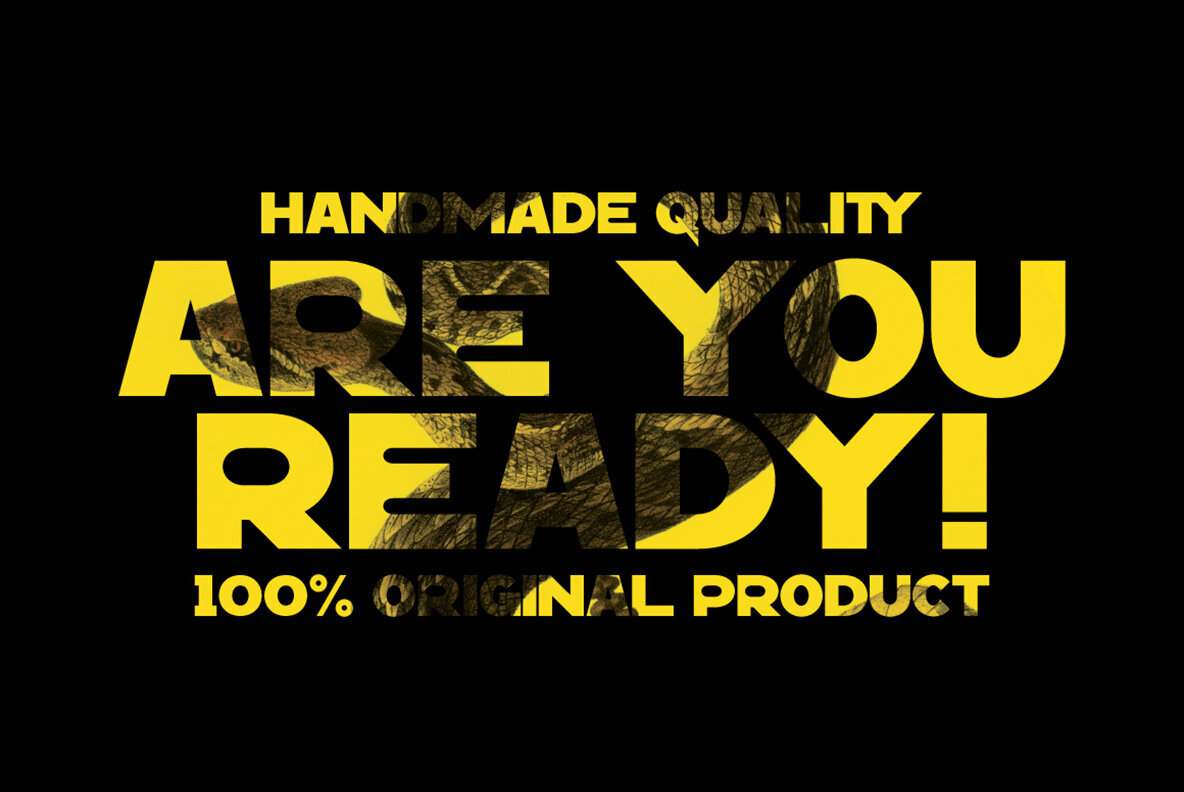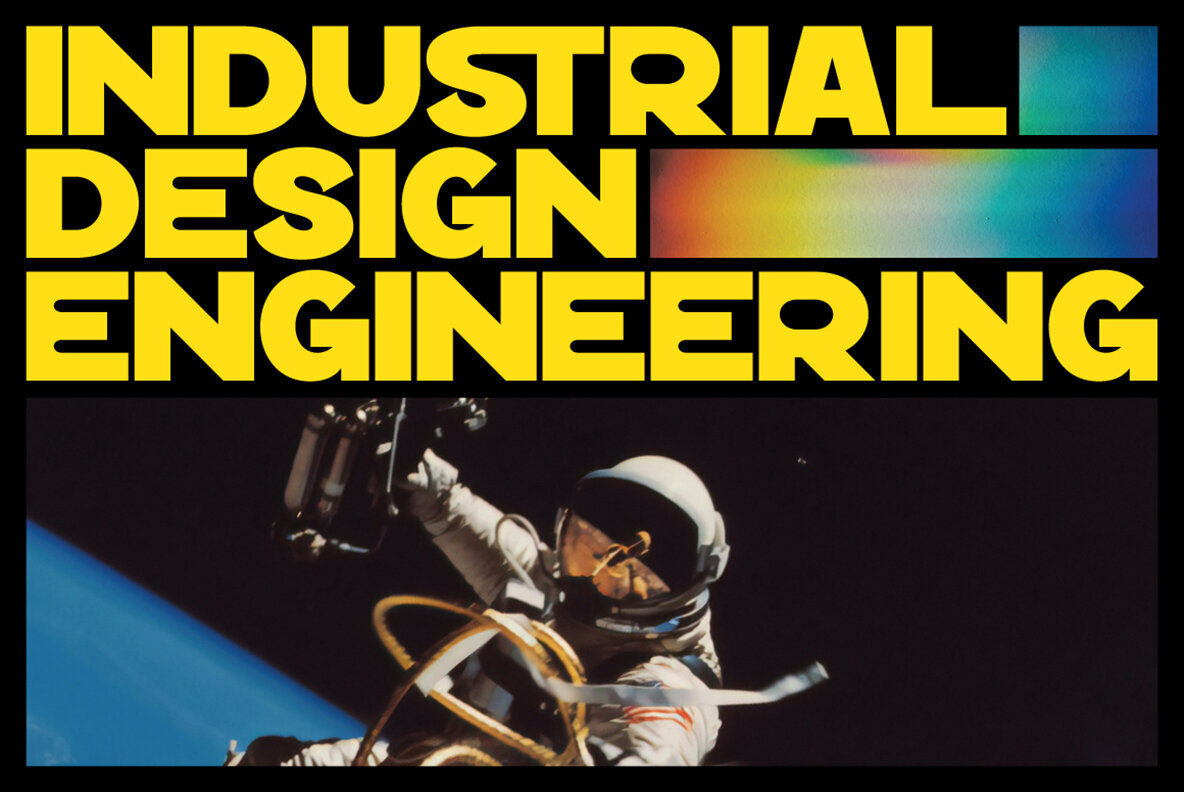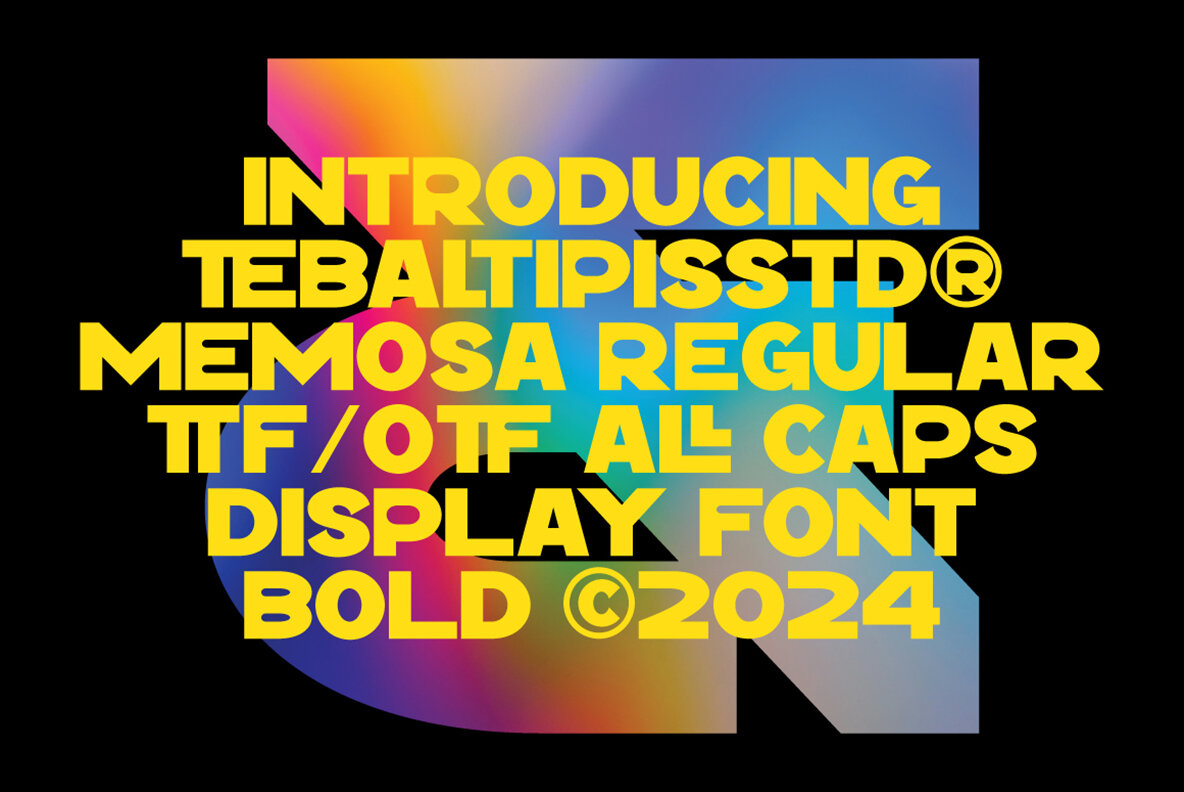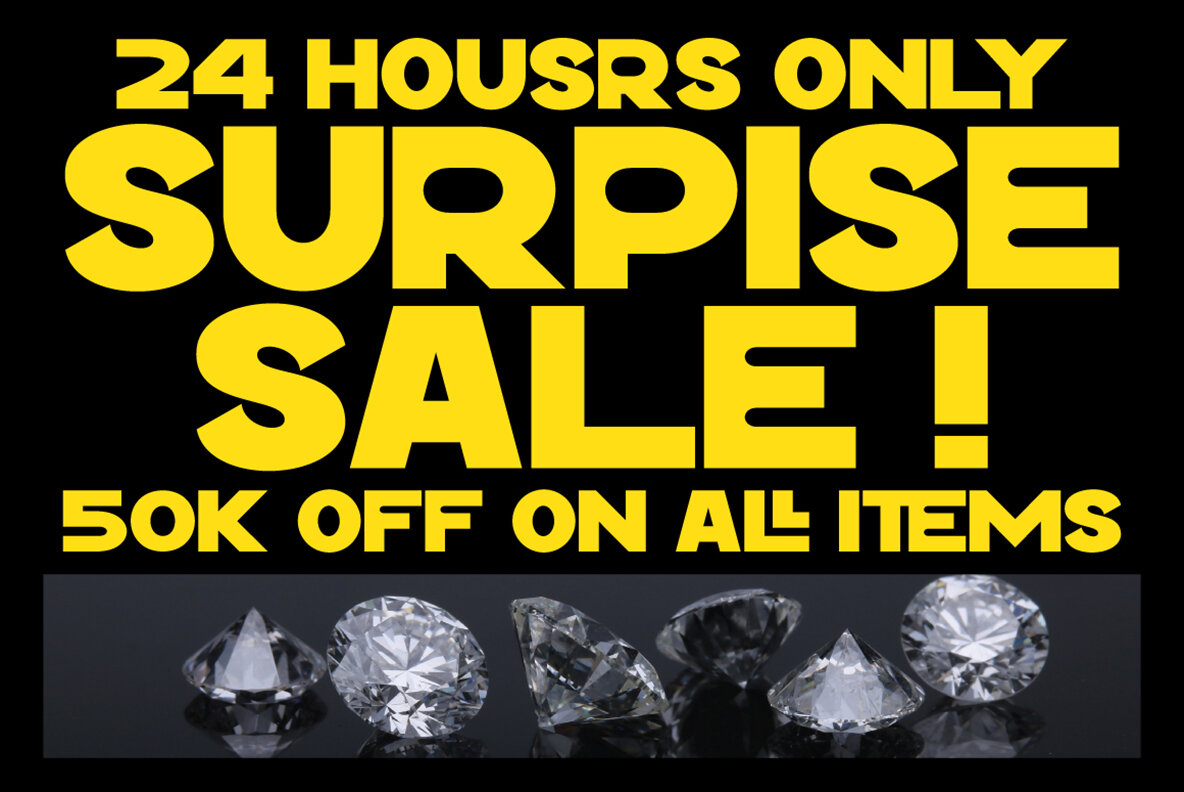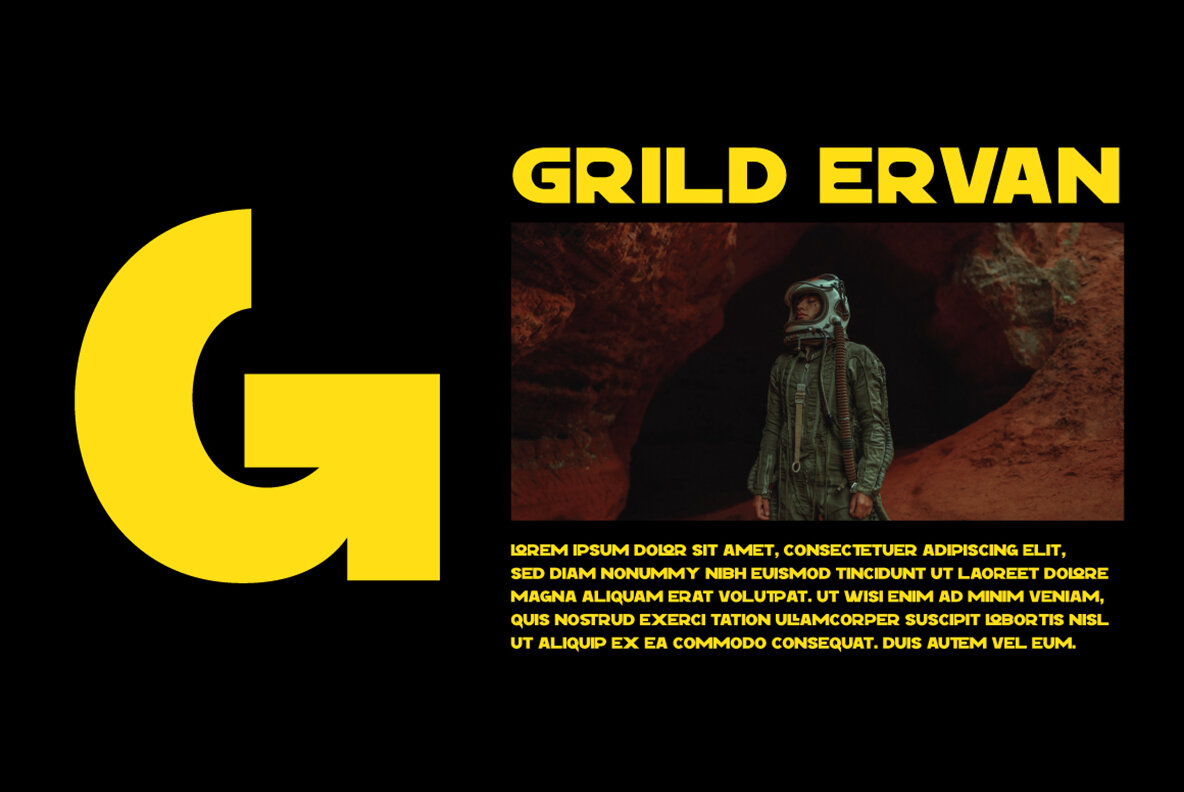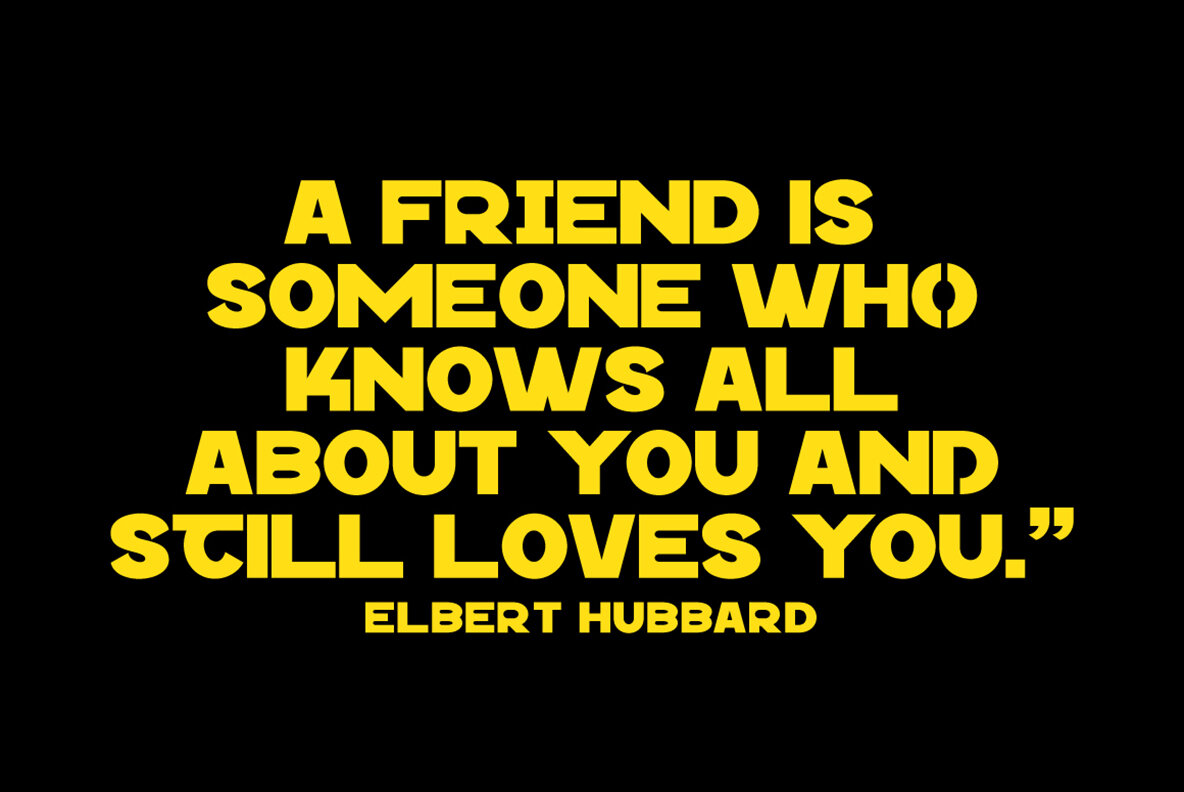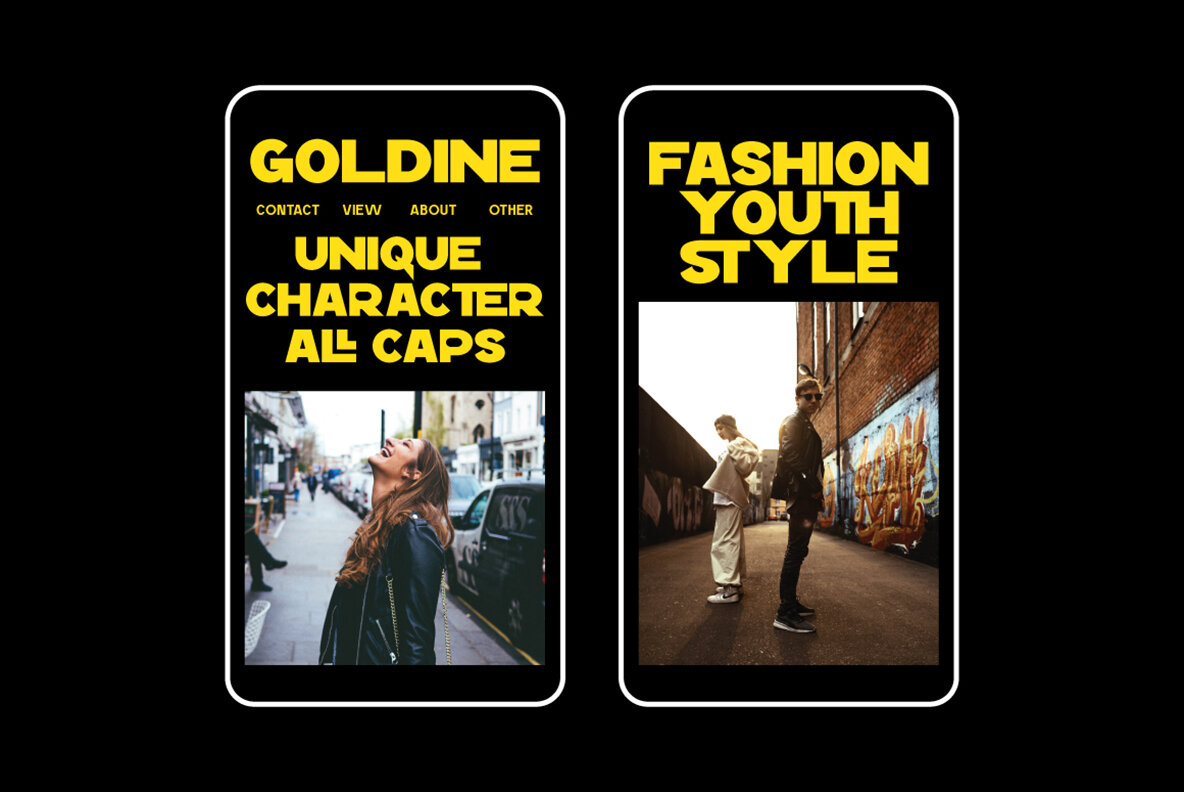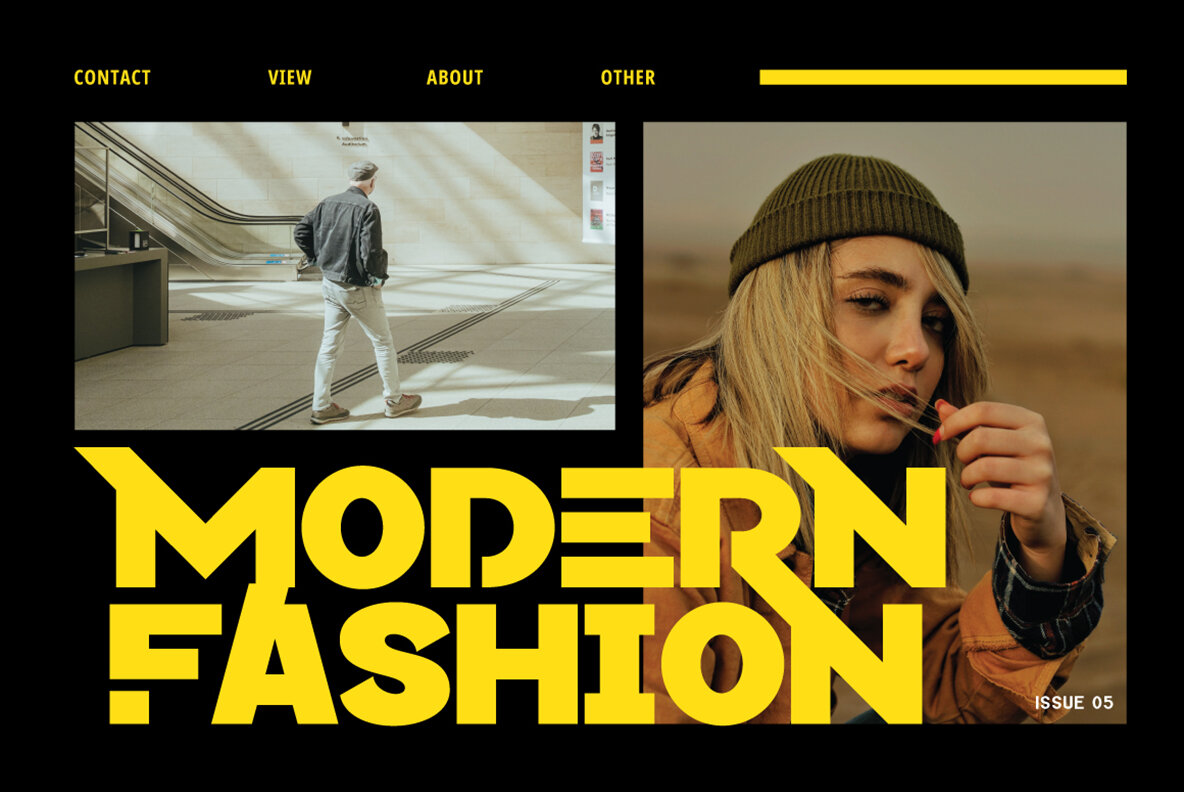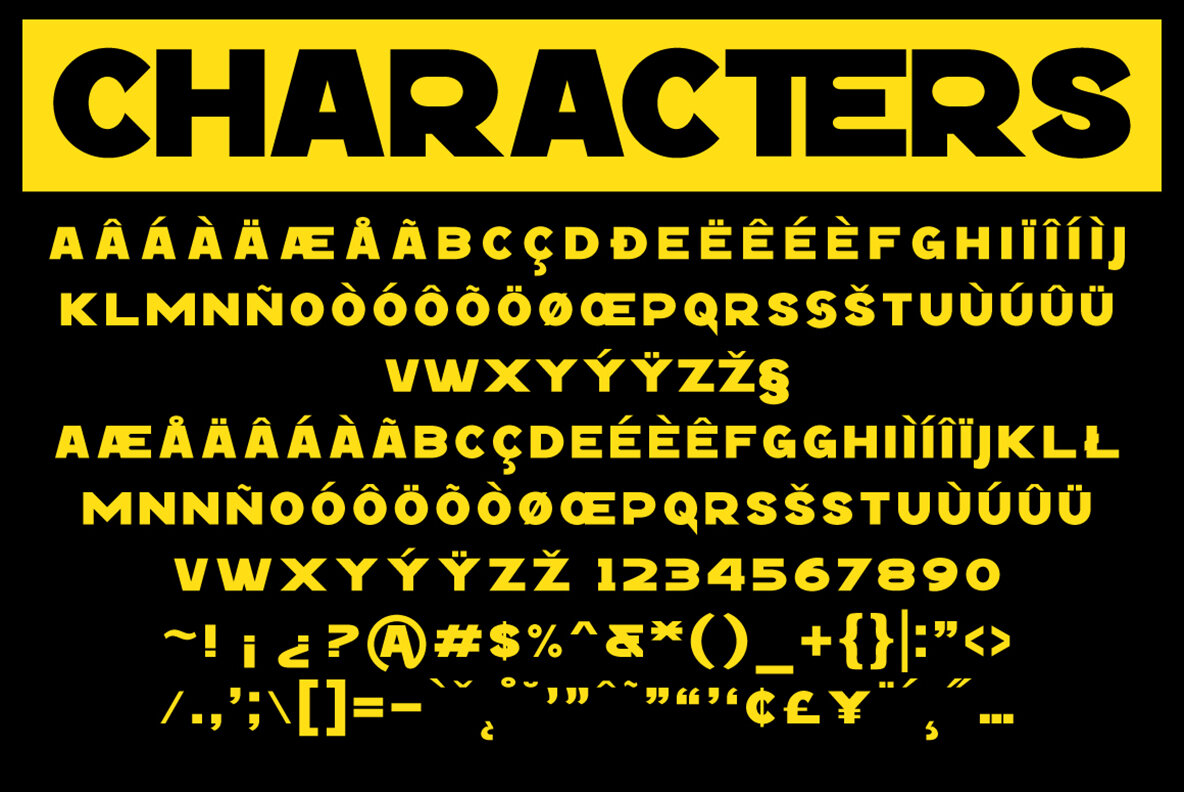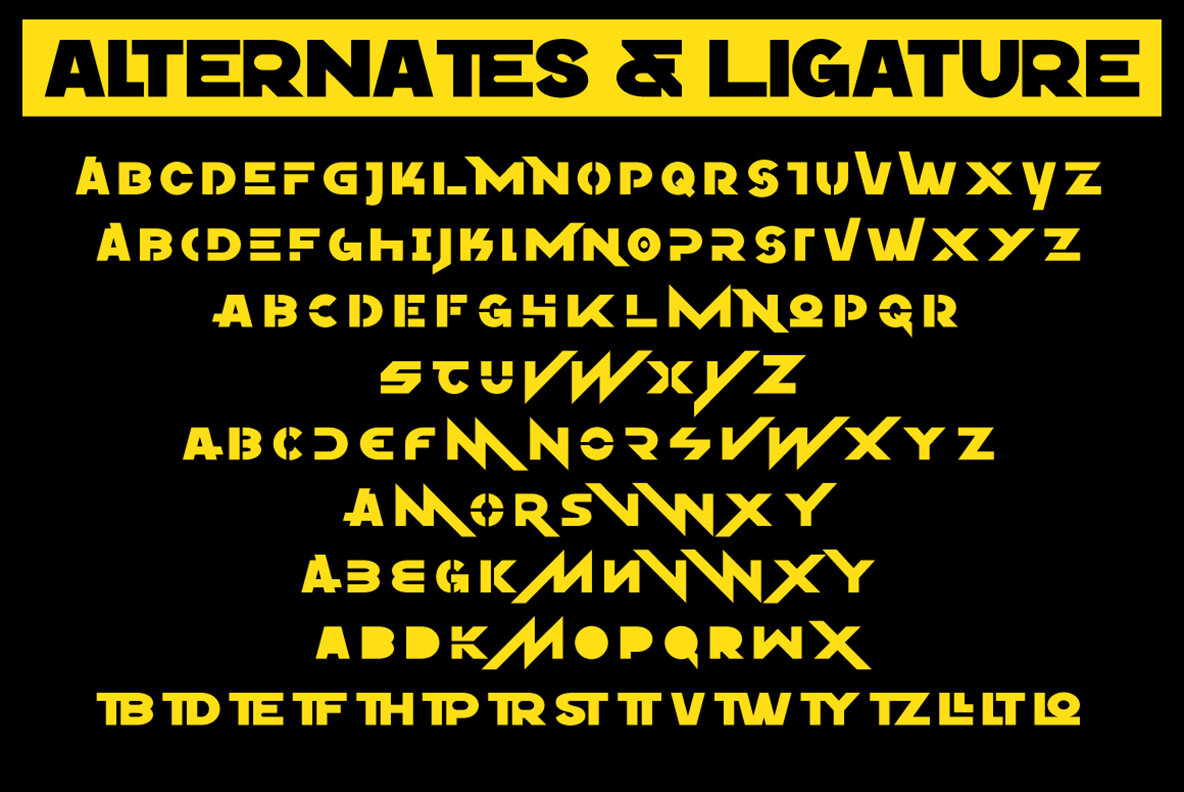
Memosa Font
Memosa Display Regular
Memosa Display Font, featuring handmade elements, decorative characters, and a unique dancing baseline, is an excellent choice for creating invitations, greeting cards, branding materials, business cards, quotes, posters, and more. Featuring over 250 glyphs, Memosa offers a range of alternative characters through features like Swash, Stylistic Sets, Stylistic Alternates, and ligatures. These can be accessed in Open Type savvy programs such as Adobe Illustrator, Adobe InDesign, Adobe Photoshop, Corel Draw X, and Microsoft Word. Moreover, it includes PUA unicode, allowing easy access to all alternate characters for designers.Memosa Display: Handmade Font for Creative Designs
Memosa Display Font Features